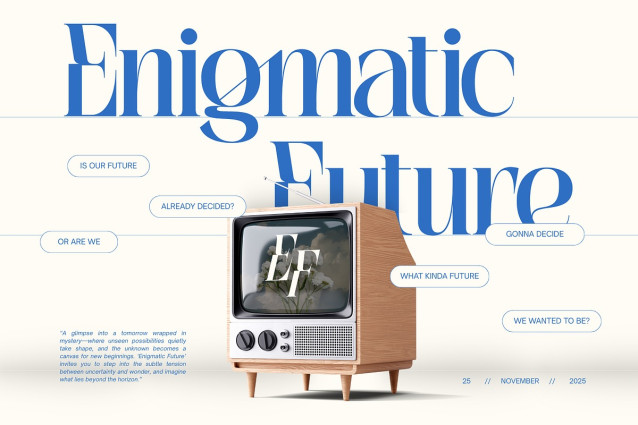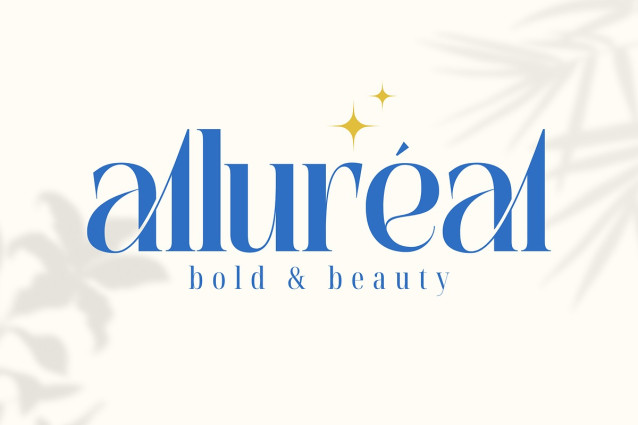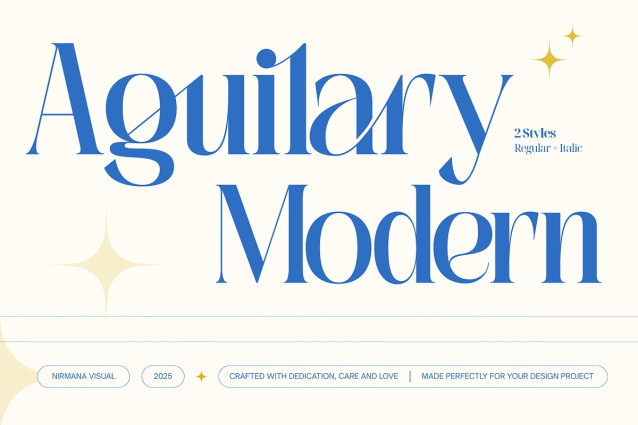
Aguilary Modern Font
Aguilary Modern Font is an aesthetic serif typeface featuring elegant ligatures, available in Regular and Italic. Crafted for refined logo branding, striking headlines, stylish posters, and more, its modern curves and sophisticated details bring a premium, timeless feel to any design. Perfect for creatives seeking a classy, polished, and visually captivating typographic statement.